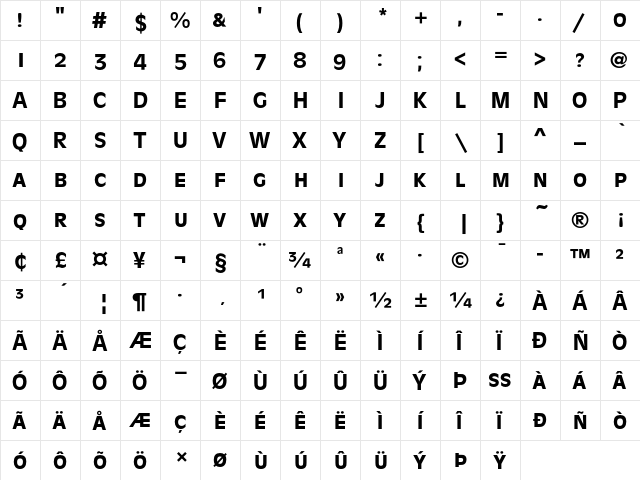
Antique Olive SC T Medium
Design Context for Antique Olive SC T Typeface
Antique Olive SC T wears its vintage influences proudly, with letterforms that recall mid-century signage, classic packaging, and nostalgia-driven design.
Ideal for diner signage, record shop branding, 70s/80s-themed projects, and heritage product labels.
Font Pairing: Combine Antique Olive SC T with a simple slab or neutral sans — period-accurate companions reinforce the vintage feel without competing for attention.
Pro Tip: Lean into Antique Olive SC T's period character by pairing it with aged paper textures, muted colour palettes, and vintage illustration styles.